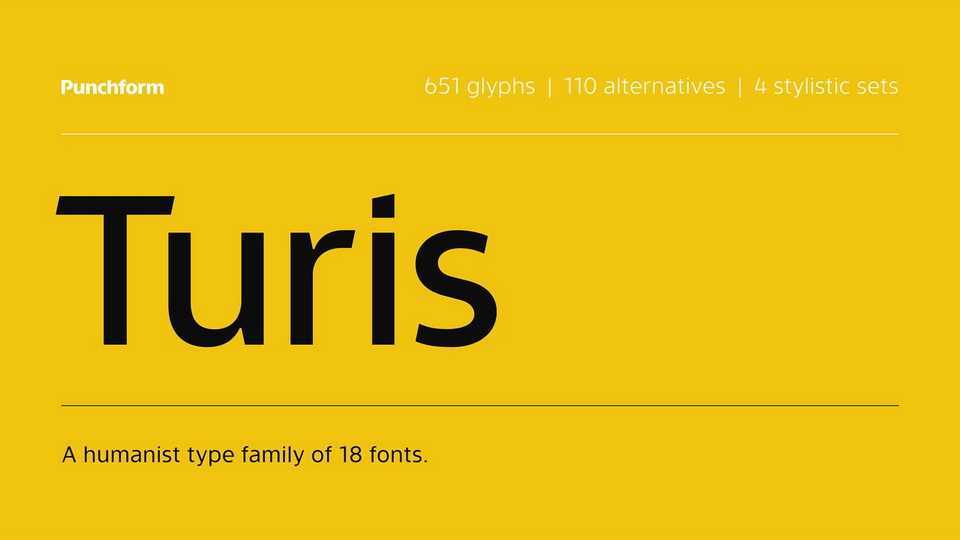
Download Turis font, a modern humanist sans serif typeface. Turis allows graphic designers to create advanced typographical layouts by offering 110 alternative glyphs and 4 stylistic sets.
Designer: Punchform